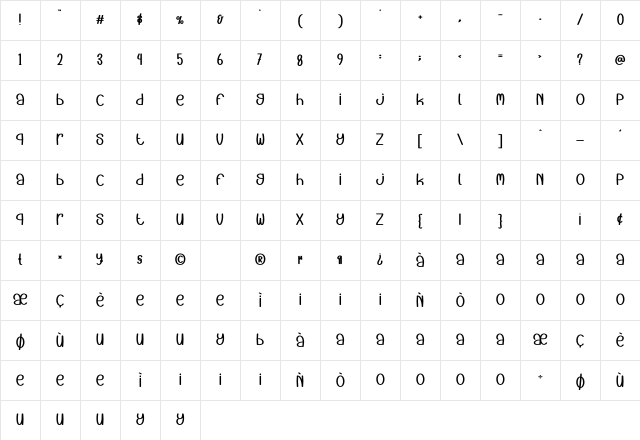
Monday Mother Regular
Design Context for Monday Mother
Monday Mother is a composed and adaptable typeface that performs quietly and consistently across a wide range of design contexts.